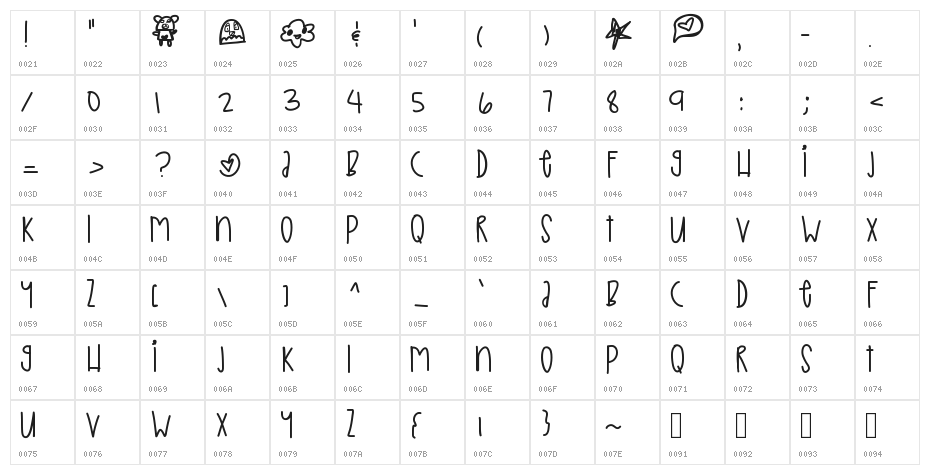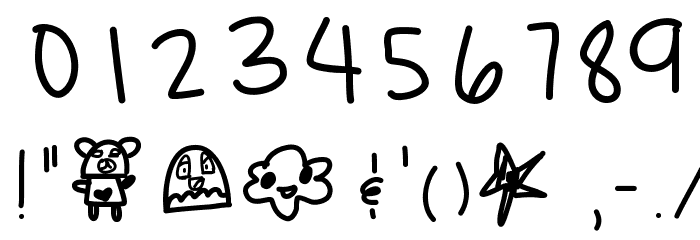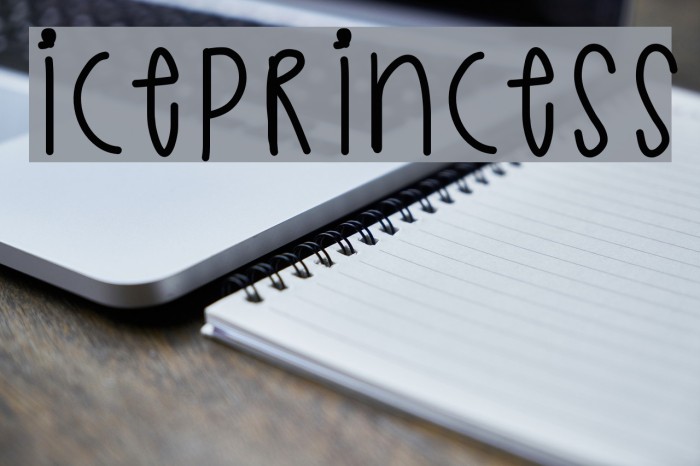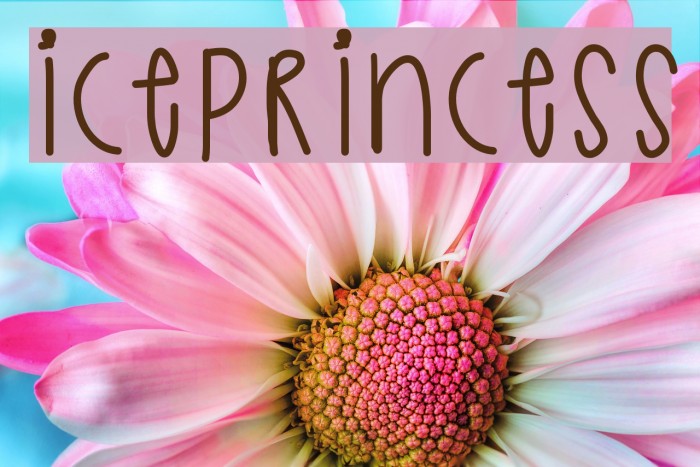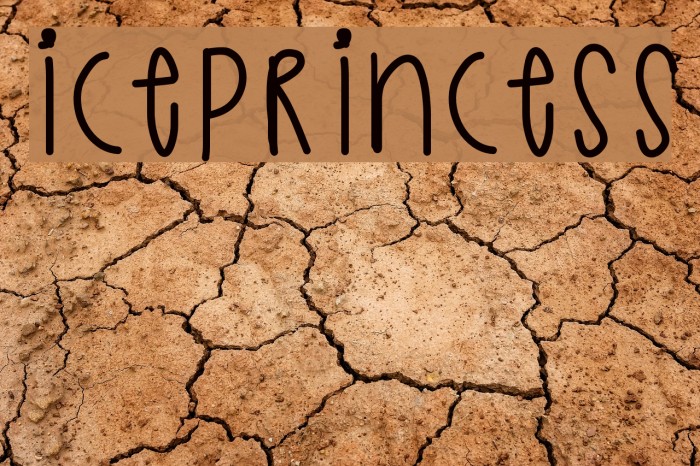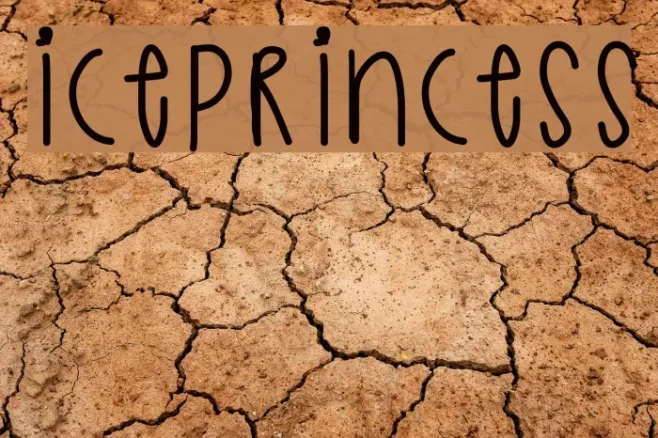
IcePrincess Font
IcePrincess Description
This playful and whimsical font features a handwritten style with a casual and friendly appearance. The characters are tall and slightly narrow, with a consistent stroke width that gives it a uniform look. The letters have a slight tilt, adding to the informal and approachable feel. The font includes both uppercase and lowercase letters, numbers, and a variety of special characters, each maintaining the same playful aesthetic. The overall design is simple yet charming, making it suitable for projects that require a touch of personality and fun.
| Proposed Projects | Ideal for children's books, greeting cards, playful branding, and social media graphics. |